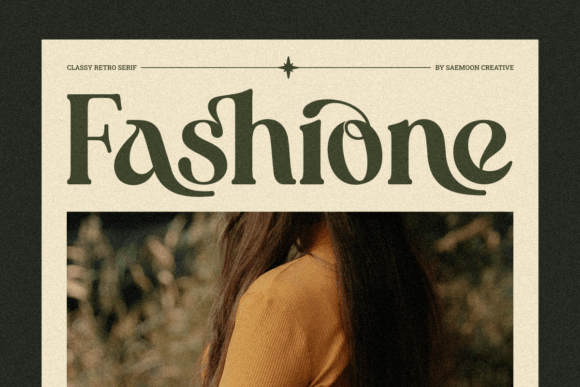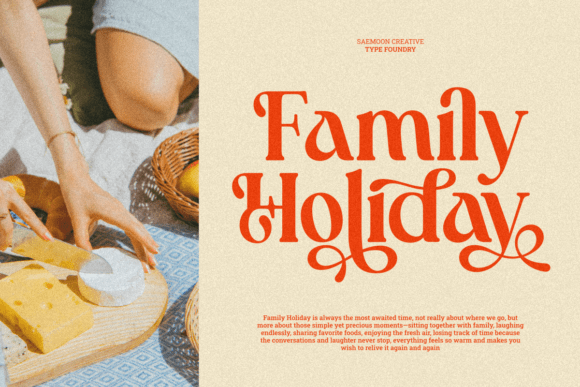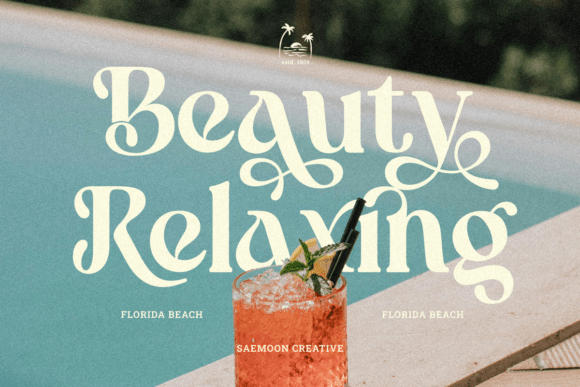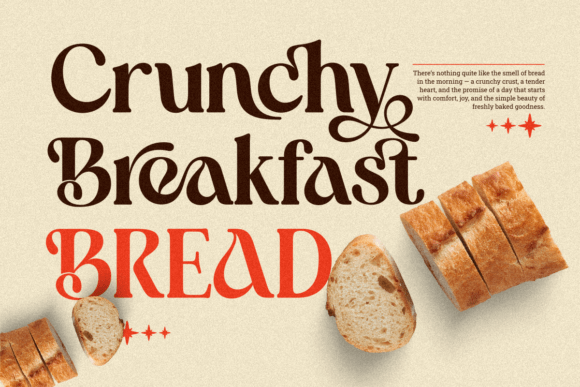
Regilla Font
Regilla is a retro serif display font that combines vintage charm with a bold, modern twist. Its unique curves and refined details bring a touch of elegance and personality to any design.